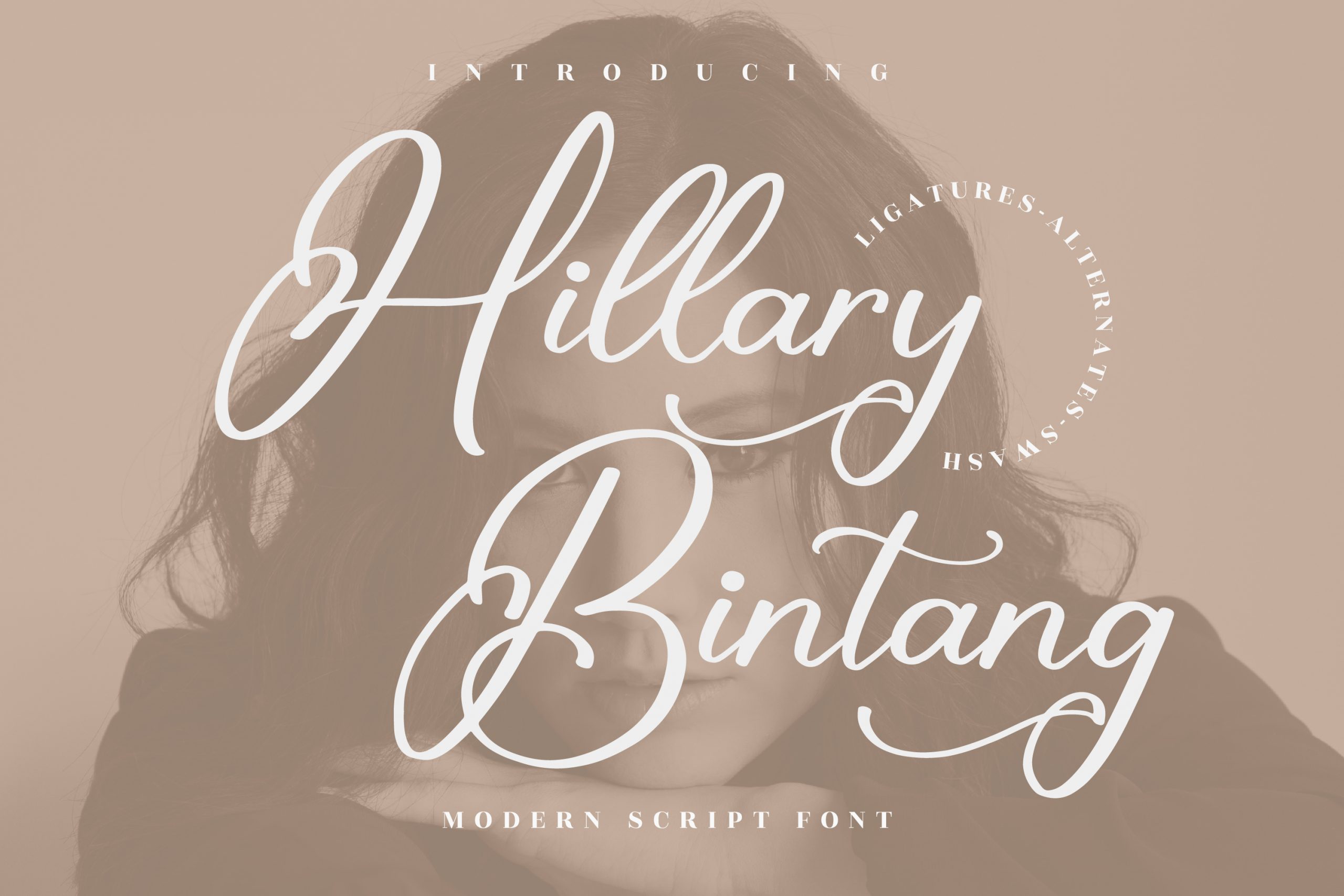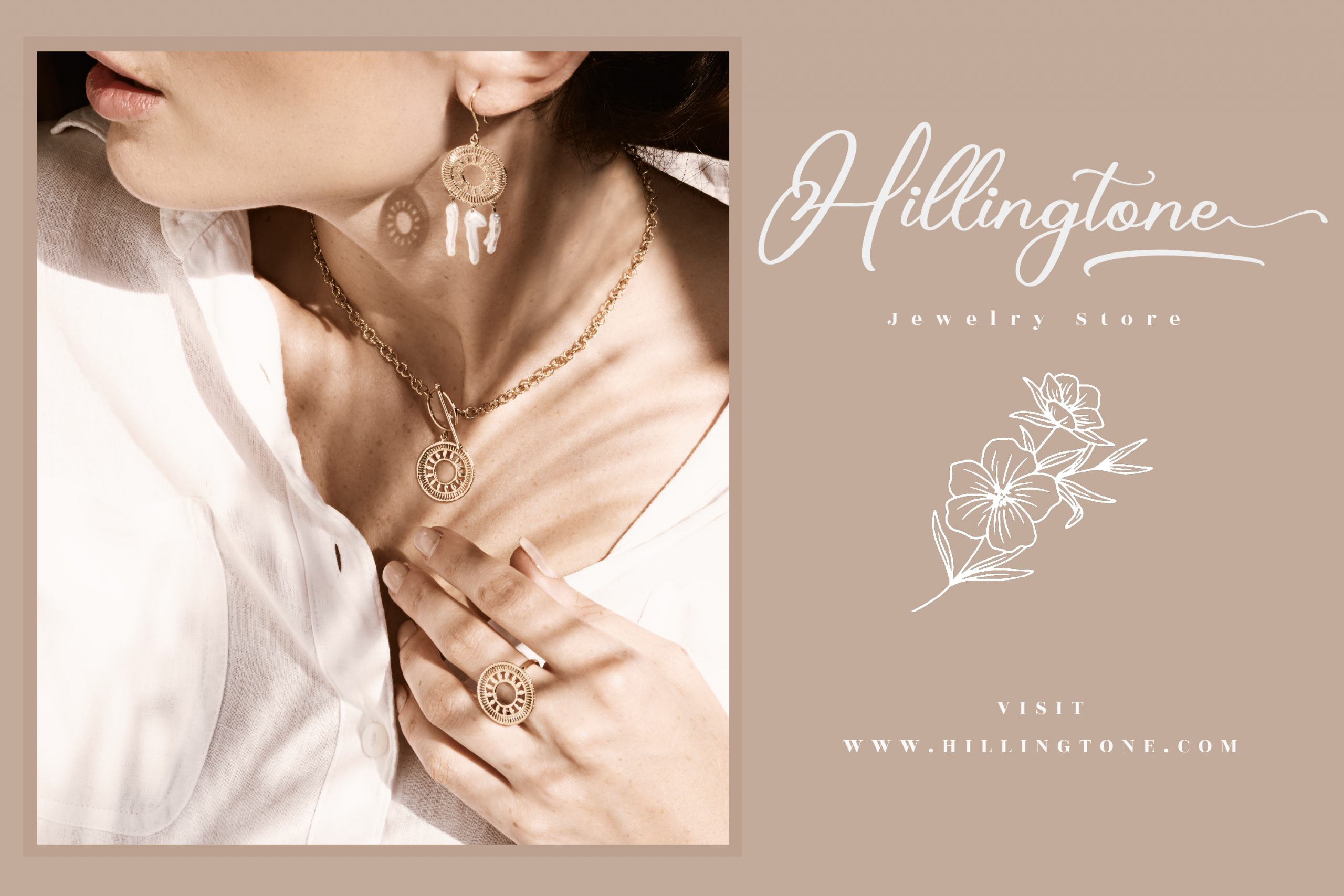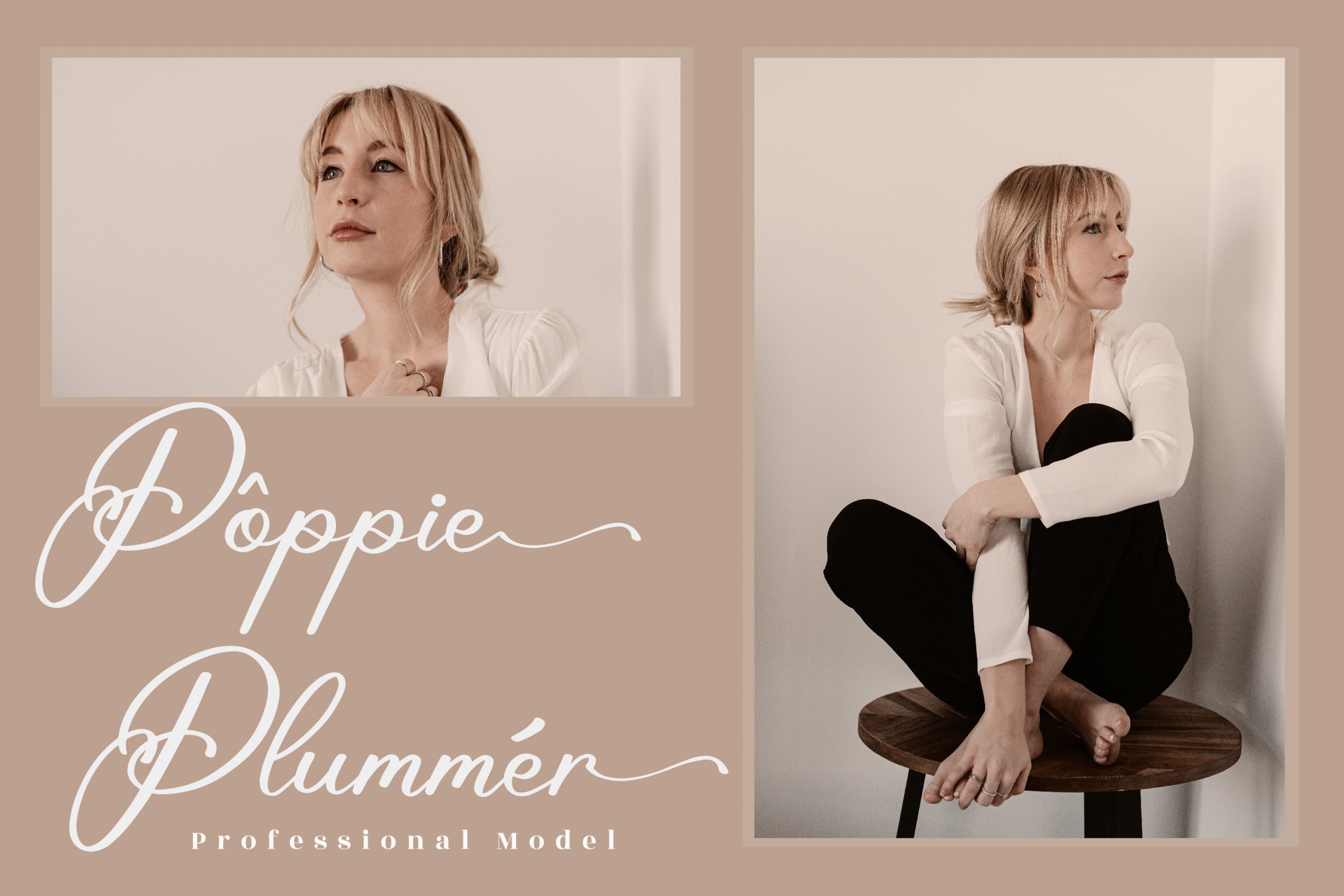
Hillary Bintang – Modern Script Font
Hillary Bintang – Modern Script Font, from Glorytype Studio, is a beautiful script font, suitable for any projects such as: logos, branding projects, homeware designs, product packaging, mugs, quotes, posters, shopping bags, t-shirts, book covers, name card, invitation cards, greeting cards, label, photography, watermark, special events, and all your other lovely projects that need a beautiful script taste.